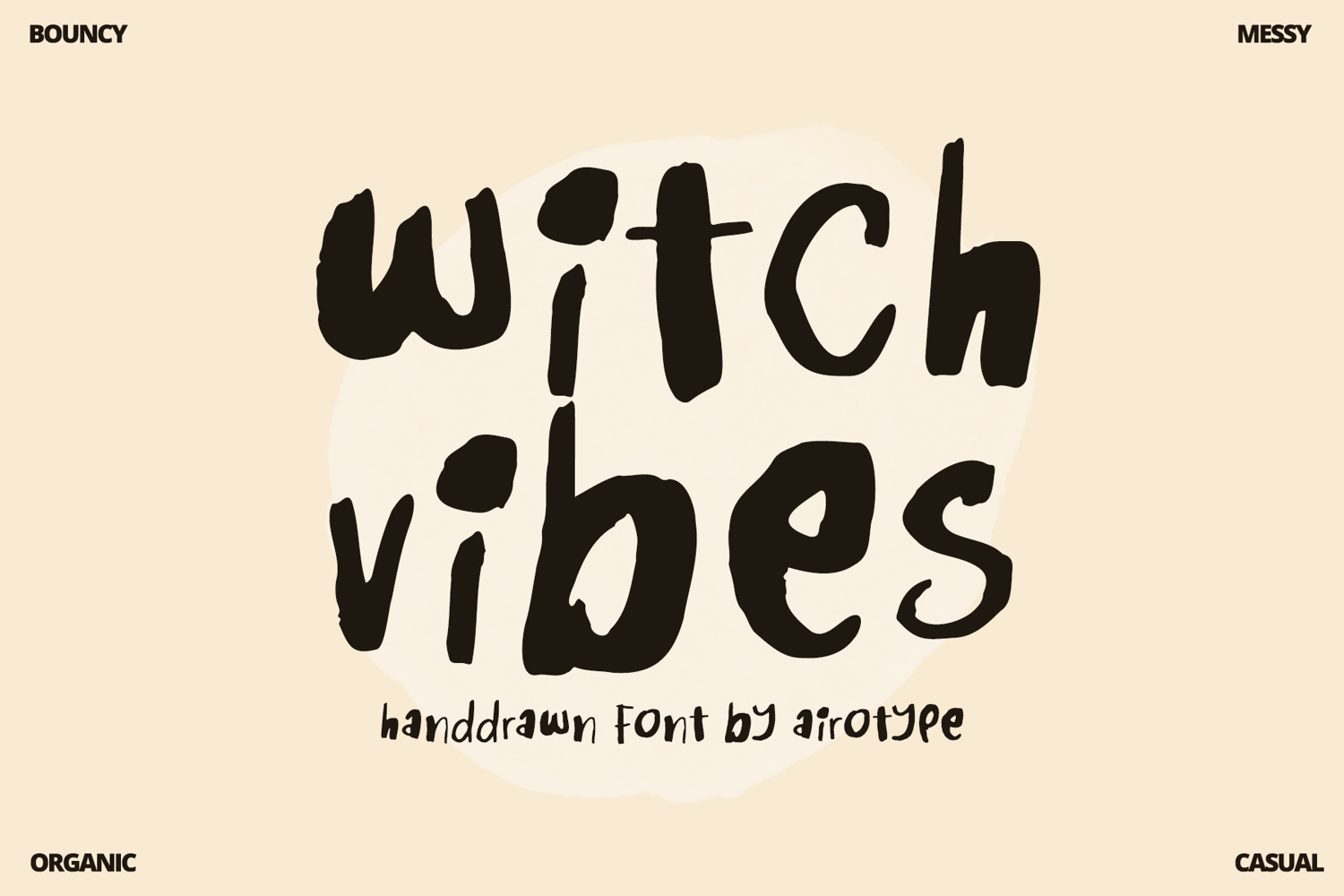
Witch Vibes is cute and fun handwritten font with organic and imperfection style. This font is ugly festive, that captures freedom and bounciness.
Witch Vibes is perfect casual imperfect font for design that needs handwritten touch, such as back to school design, poster, kids, t-shirt design, crafting, sticker, halloween, poster, and many more.